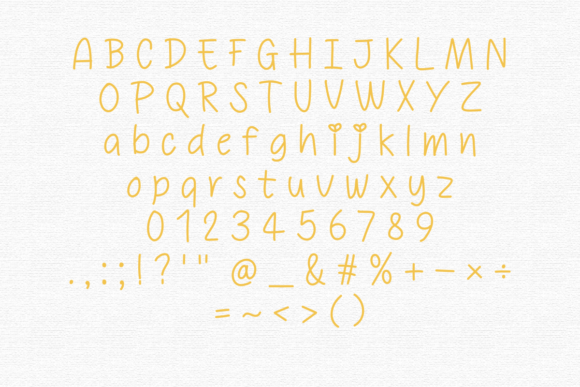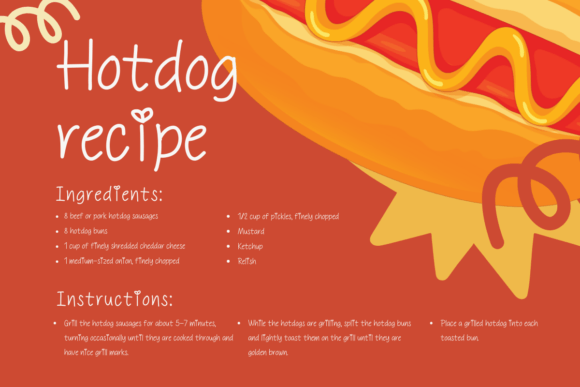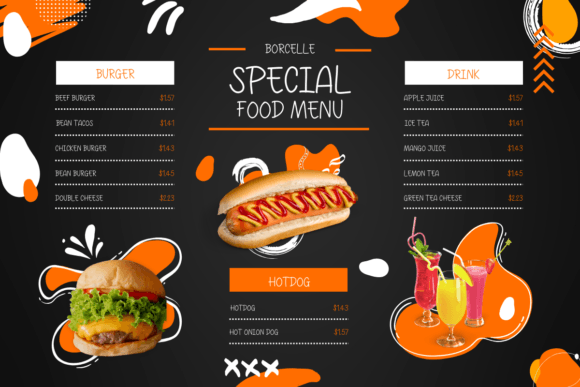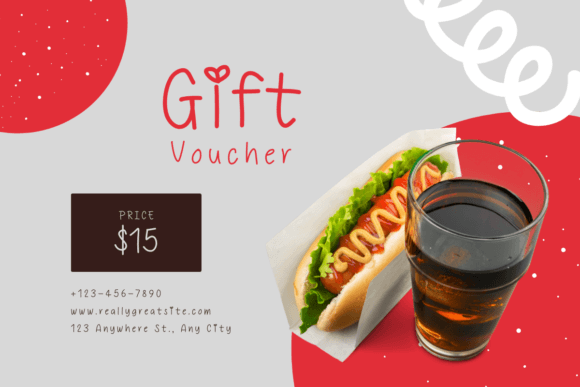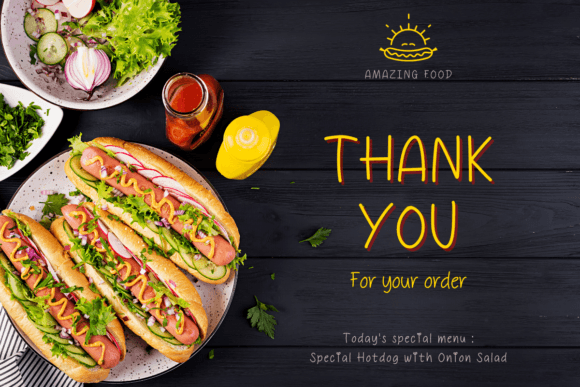
Enter Hot Dog Font, a sweet and friendly handwritten font that’s as versatile as it is charming. Designed to evoke a sense of natural elegance, Hot Dog Font is the perfect addition to any design project. Whether you’re working on a wedding invitation, a children’s book, or a social media campaign, this font is sure to bring a smile to your face and a touch of whimsy to your design.
So why is Hot Dog Font so valuable to designers? For one, its unique style makes it incredibly fitting to a wide range of designs. And with its limitless possibilities, the only limit is your imagination! With Hot Dog Font, the possibilities are endless, and we can’t wait to see what you create.
Key Features of Hot Dog Font
- Font Family: Hot Dog is a display font, available in 4 styles (Regular, Bold, Italic, Bold Italic) and 4 weights (Thin, Light, Regular, Bold).
- Character Count: The font contains over 1000 glyphs, including Latin, Cyrillic, and Greek alphabets, as well as various punctuation and special characters.
- Unique Characteristics: The font features a bold, playful, and whimsical design, with rounded shapes and a lively feel, making it suitable for use in branding, advertising, and editorial contexts.
Hot Dog Font Review
Overall, the “Hot Dog Font” is a fun and quirky font that can add a playful touch to your designs. It’s perfect for casual projects, menus, or advertisements that require a lighthearted atmosphere.
- Unique character set that includes fun icons and symbols, adding an extra layer of creativity to your designs.
- Easy to read, even at smaller font sizes, making it suitable for a variety of applications.
- The font’s playfulness can help capture attention and create a memorable brand image.
- Limited to a specific niche or theme, making it less versatile than other fonts.
- The font’s whimsical nature may not be suitable for professional or formal projects.
- The lack of a standard character set may cause issues with formatting and compatibility.
Overall, the “Hot Dog Font” is a solid choice for designers looking to add a touch of playfulness to their projects. While it has its limitations, it’s a great option for the right type of design. With a little creativity, this font can help create memorable and engaging designs.
Tips for Getting the Most Out of the Hot Dog Font
Use the Hot Dog Font to add a playful touch to your designs. It’s perfect for food-related businesses, children’s products, or anything that needs a fun and casual vibe.
The Hot Dog Font is commonly used in:
- Food truck or restaurant branding
- Children’s party invitations or decorations
- Food-related advertising or promotions